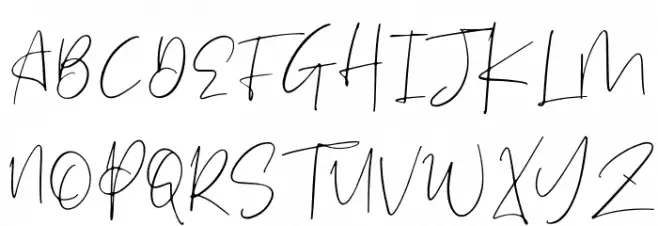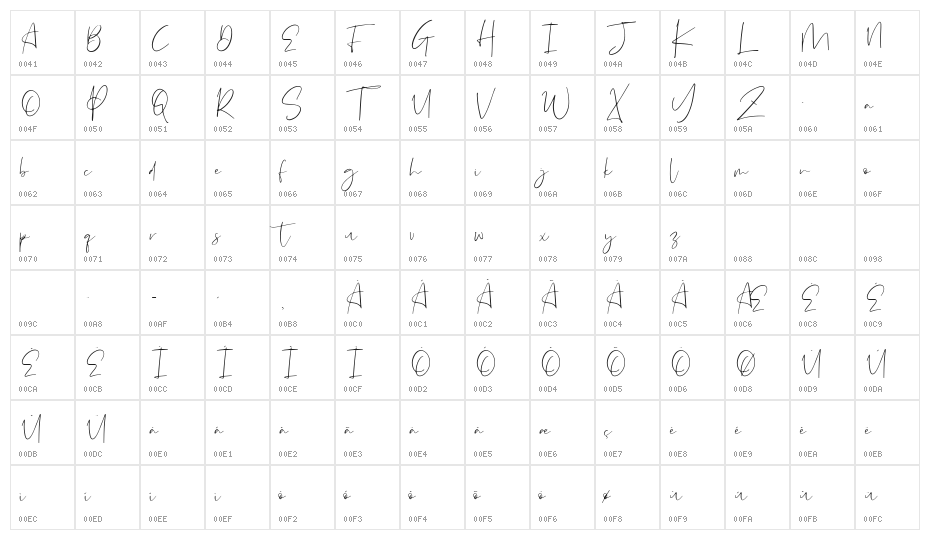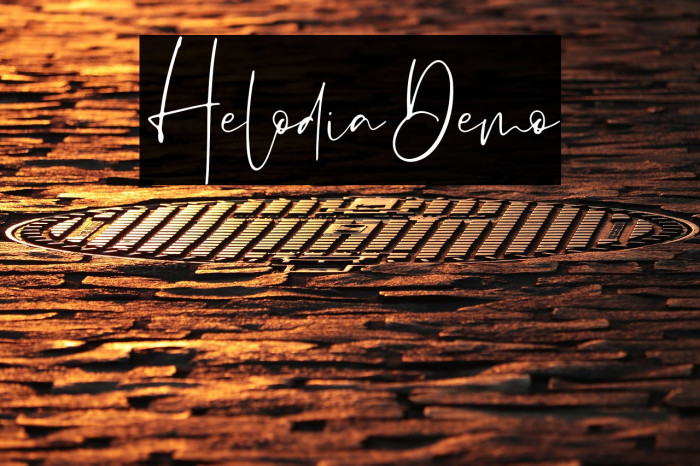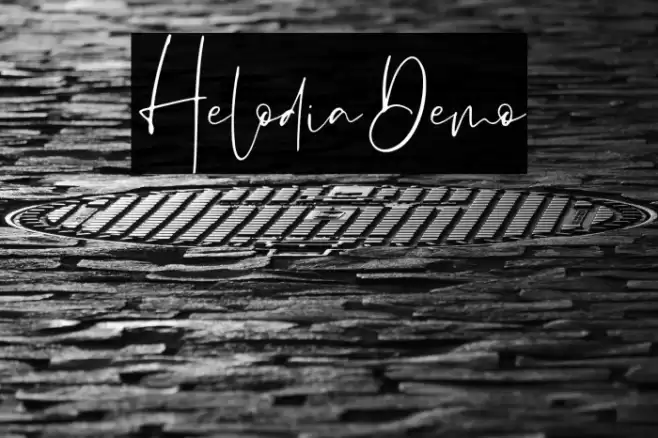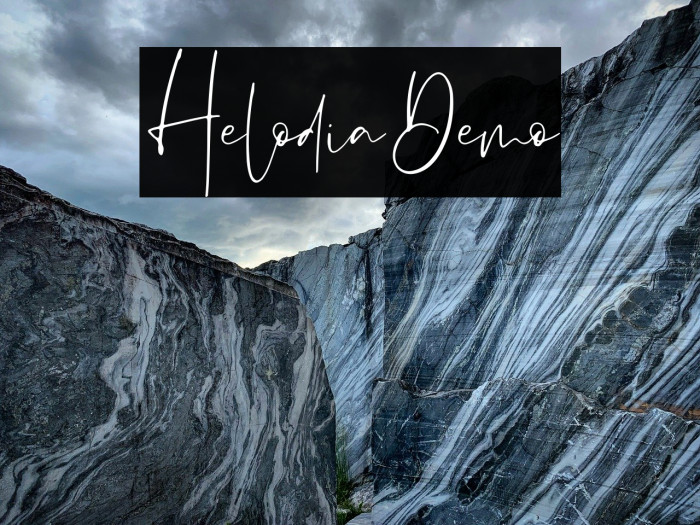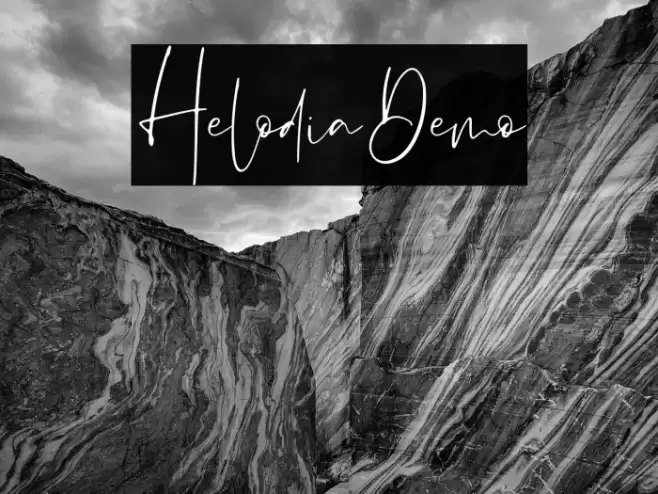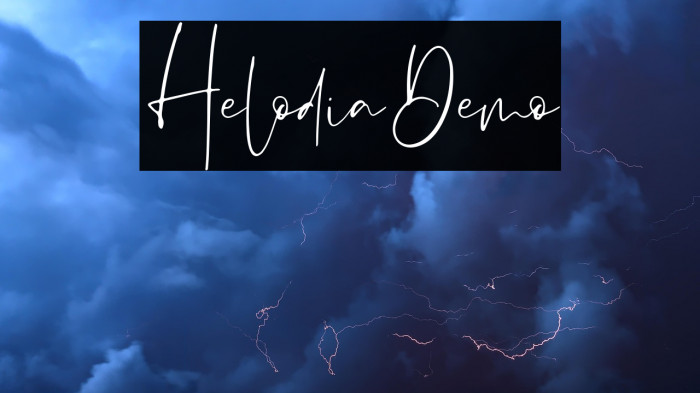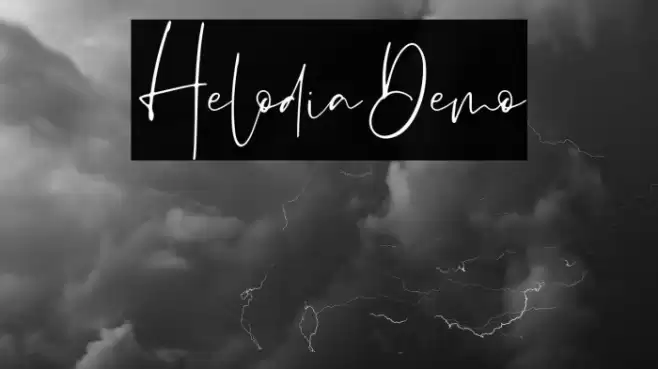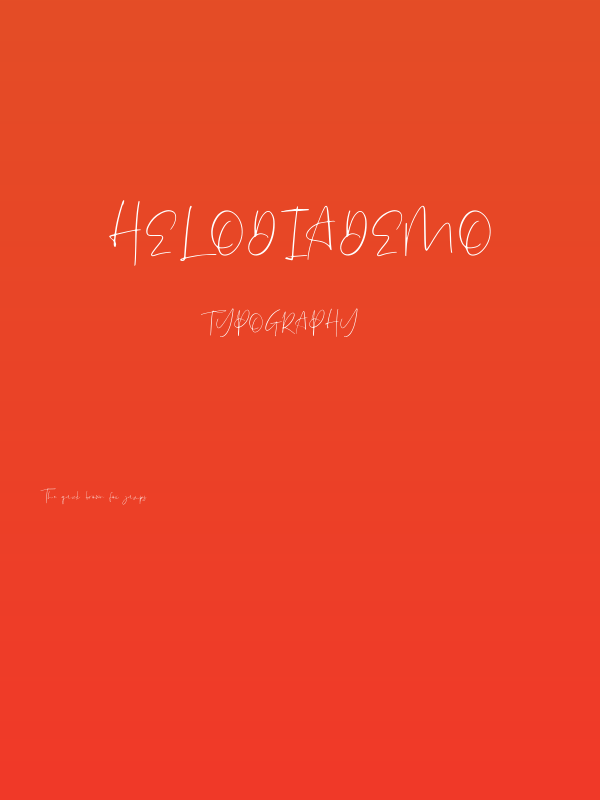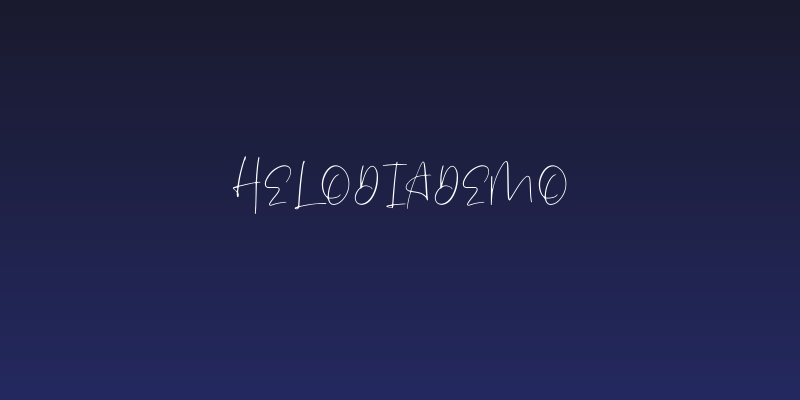
HelodiaDemo Font
HelodiaDemo Description
This font features a distinctive handwritten style with a modern flair. The characters are elegantly crafted with a flowing, cursive design that exudes a sense of casual sophistication. The uppercase and lowercase letters maintain a consistent style, with smooth curves and a slight slant that adds to the handwritten feel. The strokes are thin, providing a delicate appearance, yet they are confidently drawn, giving the font a sense of personality and charm. The spacing between characters is relatively tight, which enhances the cohesive look of the text. This font is ideal for projects that require a personal touch, such as invitations, greeting cards, or branding materials that aim to convey warmth and approachability.